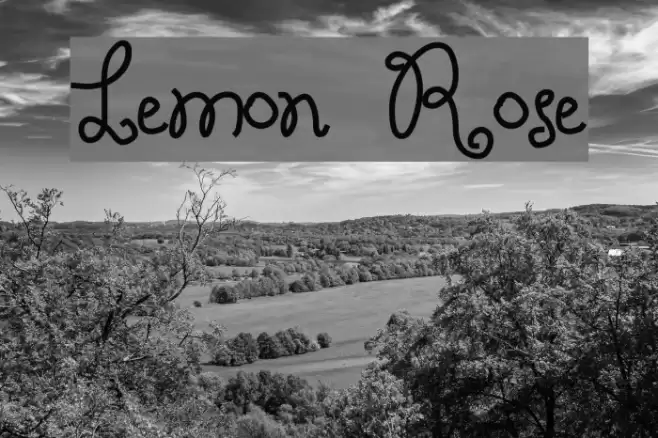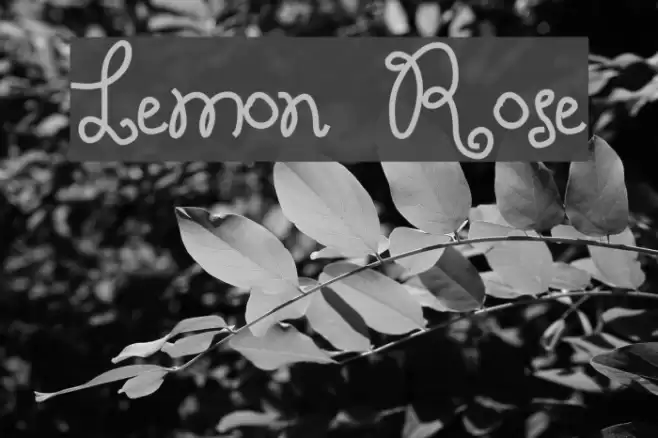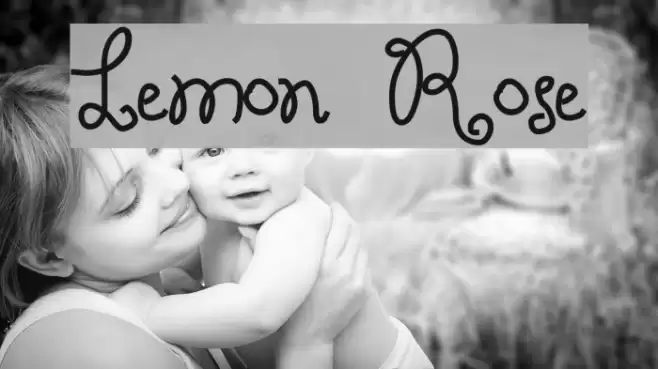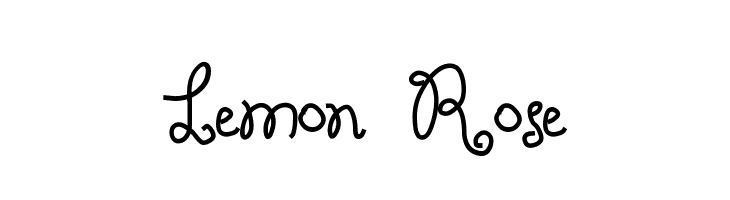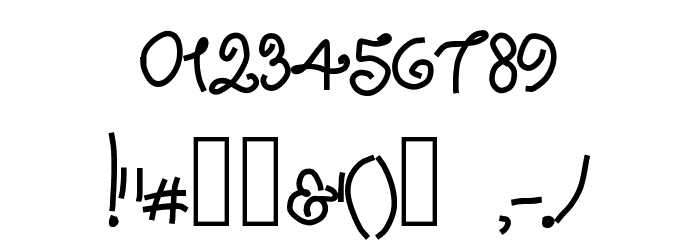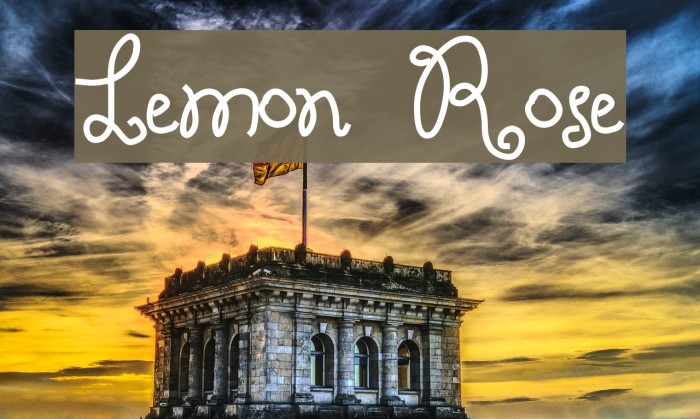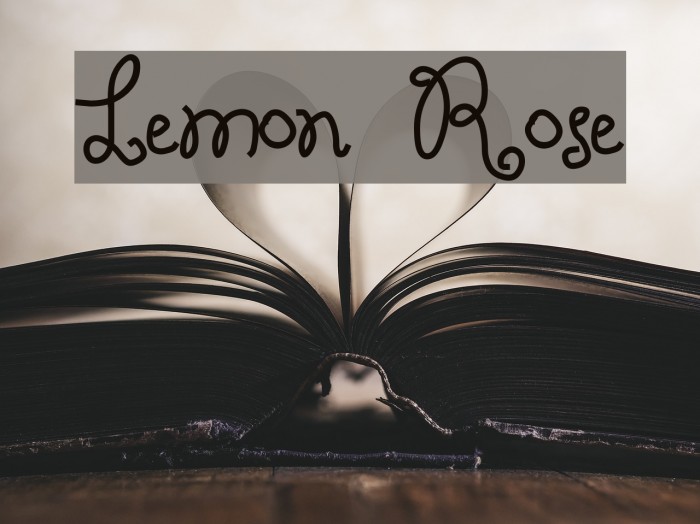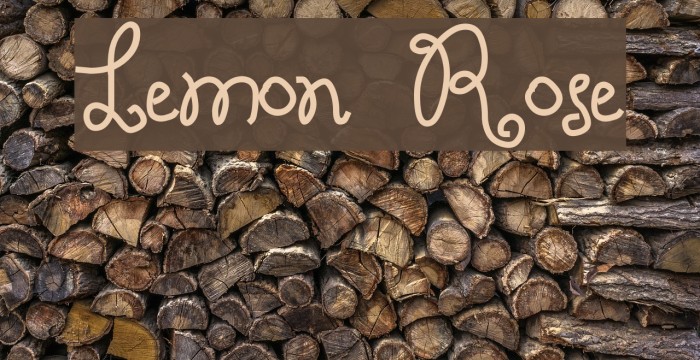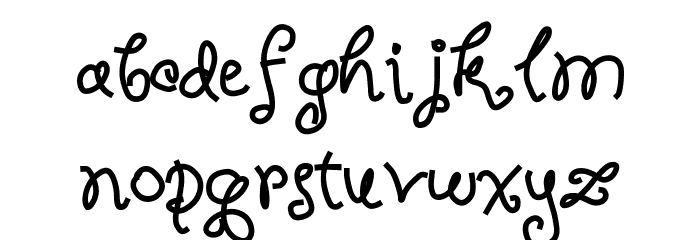
Lemon Rose Font
Lemon Rose Description
This font features a whimsical and decorative style, characterized by its curly and looping strokes. Each letter is adorned with intricate swirls, giving it a playful and artistic appearance. The uppercase letters are particularly ornate, with exaggerated curves and flourishes that make them stand out. The lowercase letters maintain a consistent style, with a slightly more subdued flair, making them more readable while still retaining the font's unique charm. Numbers and special characters are designed to match the overall aesthetic, ensuring a cohesive look across all text elements. This font is ideal for projects that require a touch of elegance and creativity.
A whimsical and decorative font with curly, looping strokes and ornate flourishes from Curly fonts.
- Proposed Projects: Ideal for wedding invitations, greeting cards, branding for creative businesses, and decorative posters.
- Use Case: Logos, Headlines, Invitations